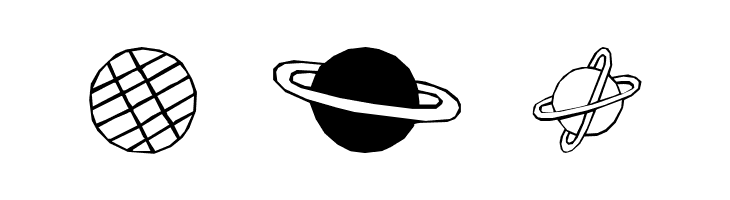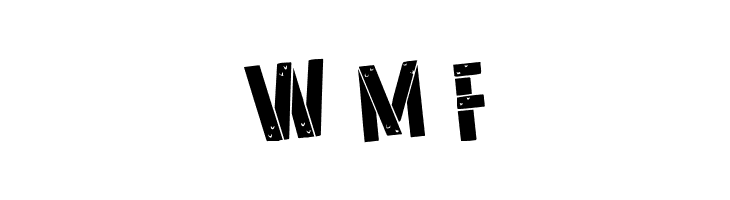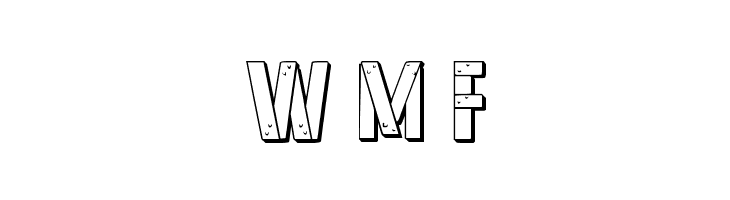
Planet Kosmos Font
Font by www.planet.dk
A bold, futuristic font with sharp angles and a dynamic slant.
B Surfers Plane Font
Font by www.smilestudio-jp.com
A whimsical and playful font with quirky embellishments and imaginative characters.
Planet-of-the-Apes Font
Font by Jens R. Ziehn - www.filmhimmel.com
A bold, geometric font with a retro-futuristic style and strong visual impact.
Planet Benson 2 Font
A bold, playful font with a 3D shadow effect and exaggerated curves.
Planet Estyle Font
Font by www.planet.dk
A modern, geometric sans-serif font with rounded characters and uniform stroke width.
Pixellari Font
Zacchary Dempsey-Plante - ztdp.ca
A pixelated, retro-style font inspired by early digital displays.
Planer Font
A modern, rounded sans-serif font with a clean and approachable style.
Planks Font
A playful, hand-drawn font resembling wooden planks with visible screws.
Arakawa Plane Font
GandhiSans-Bold Font
A bold, modern sans-serif font with clean lines and strong visual impact.
Planets Font
Hand-drawn decorative font with planet and space motifs.
Plane Crash Font
A bold, distressed font with a grunge texture and rugged appearance.
GandhiSerif-Regular Font
A classic serif typeface with elegant proportions and refined serifs.
LYBinkyFont Font
A playful, bold handwritten font with rounded, irregular letterforms.
Planet N Font
A futuristic, geometric font with a sleek, modern design and consistent stroke widths.
Planet Benson Font
Font by or from www.graffitifonts.net
A bold, playful font with a cartoonish, three-dimensional style.